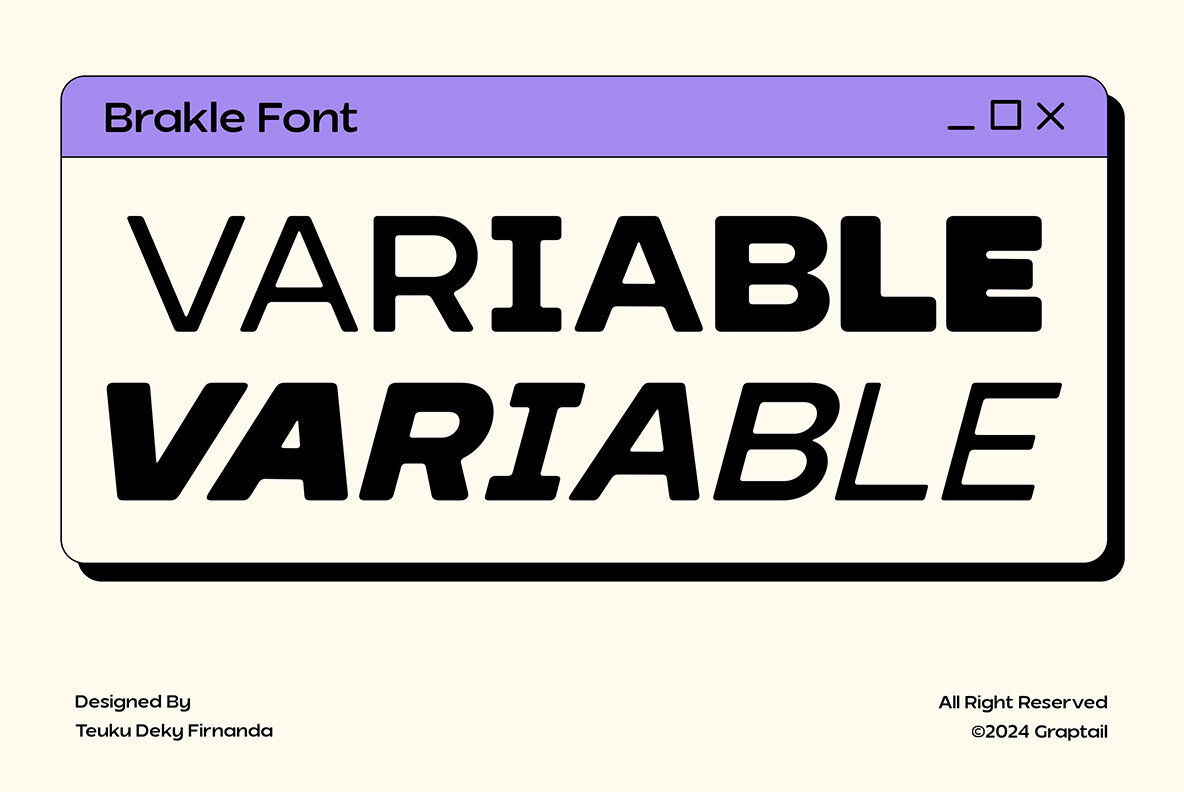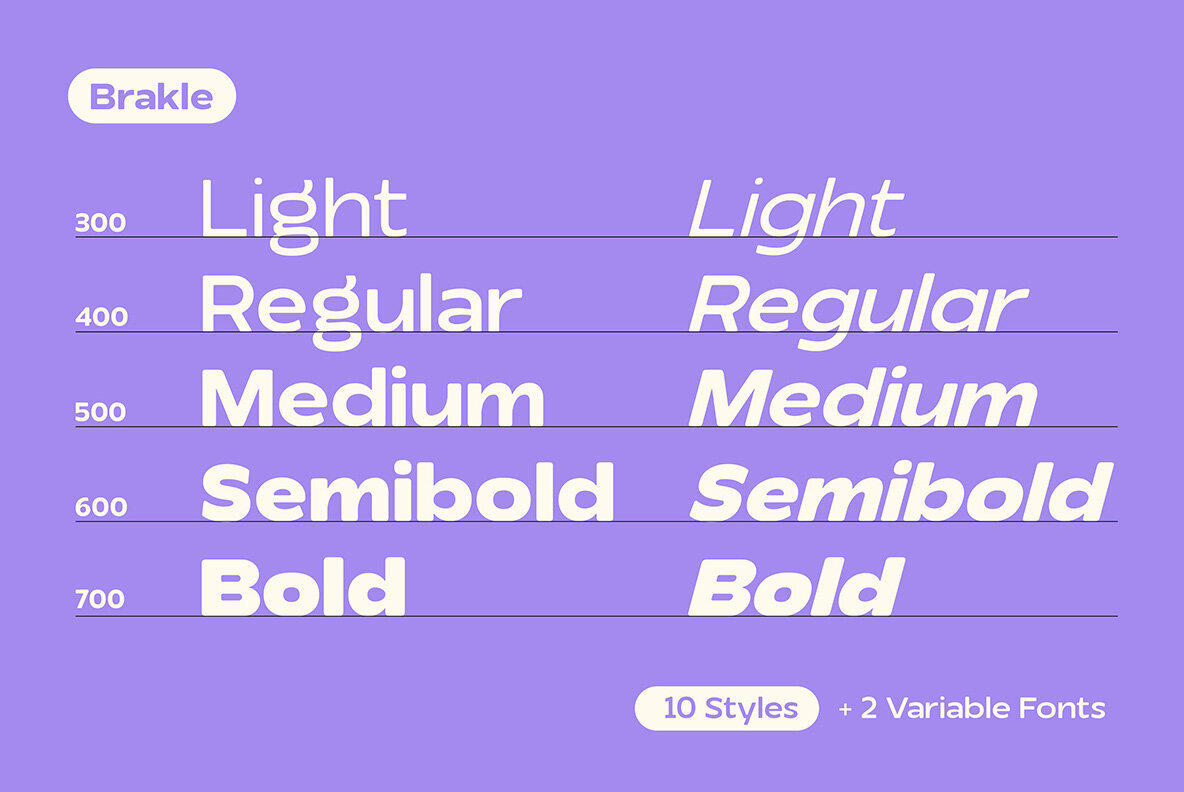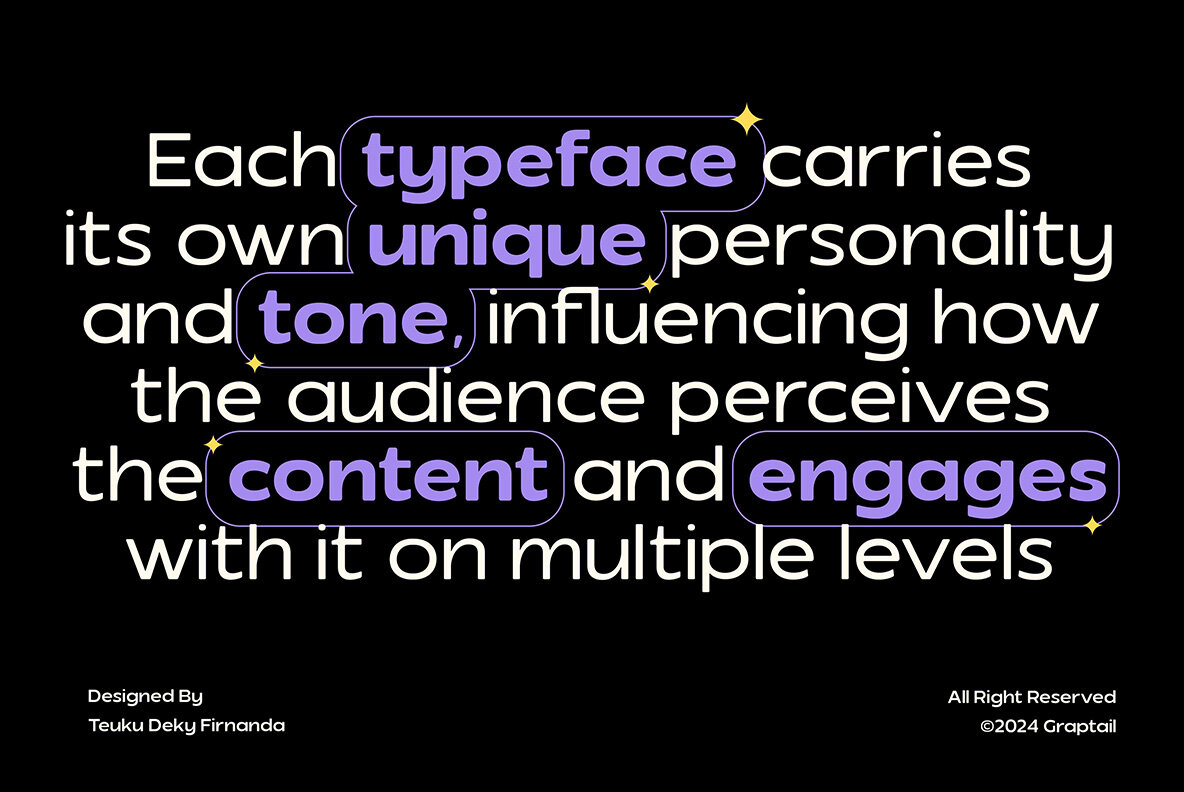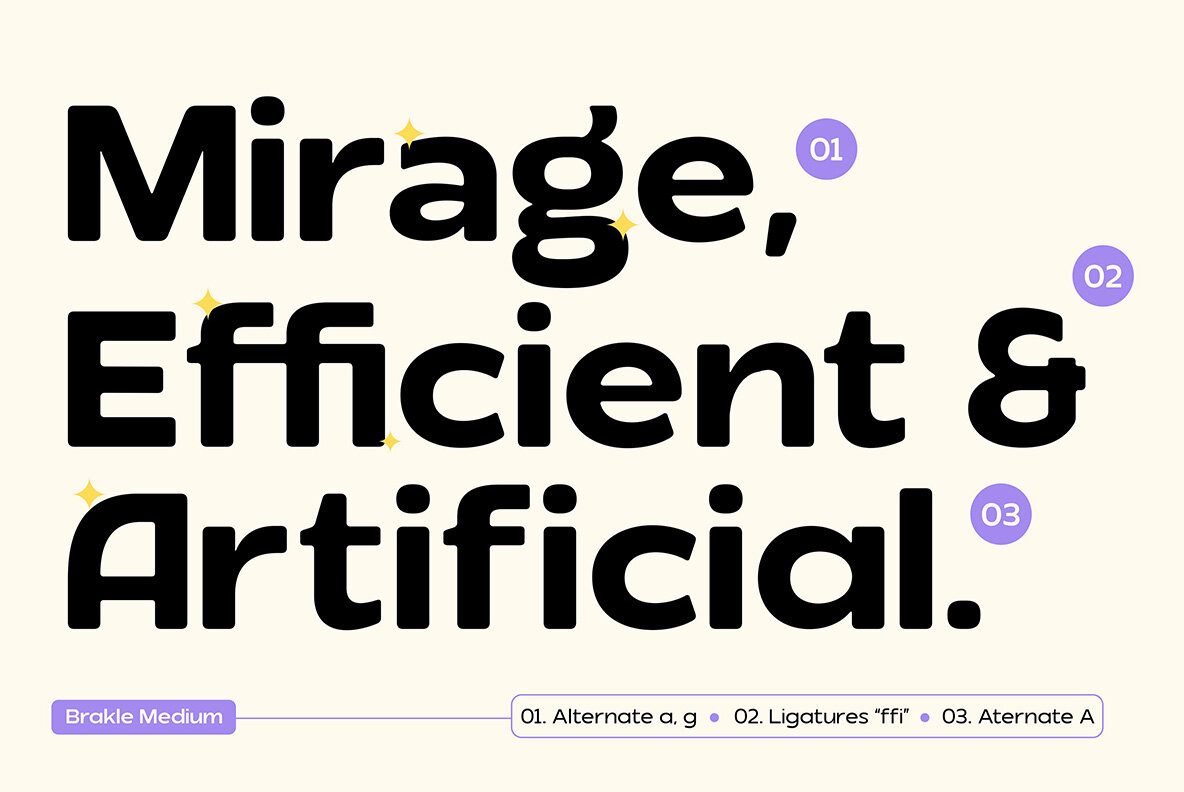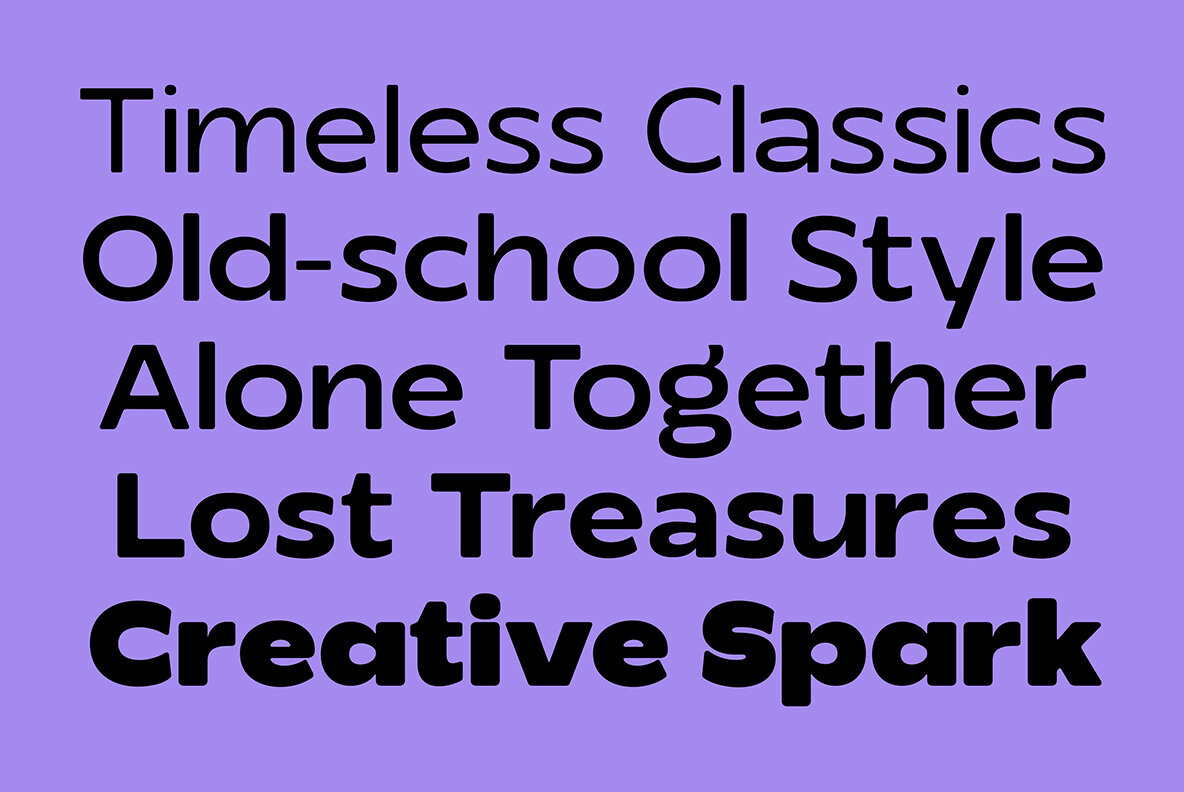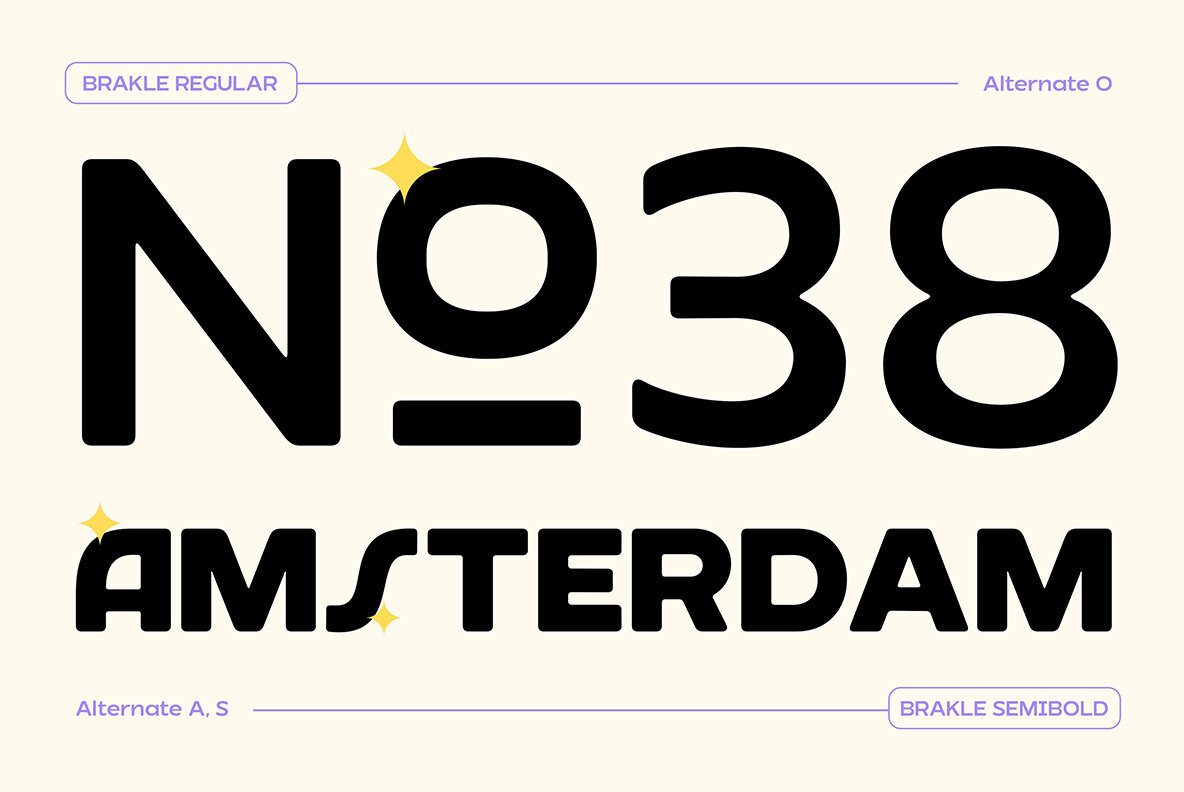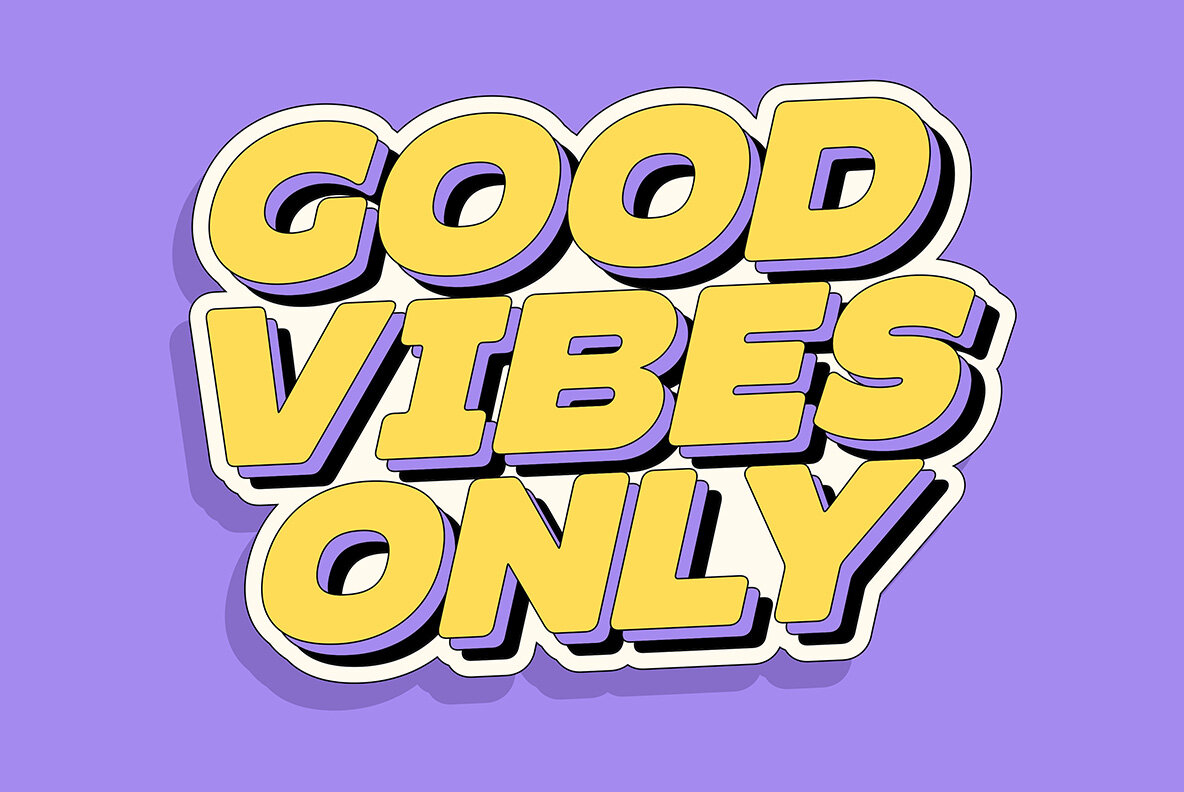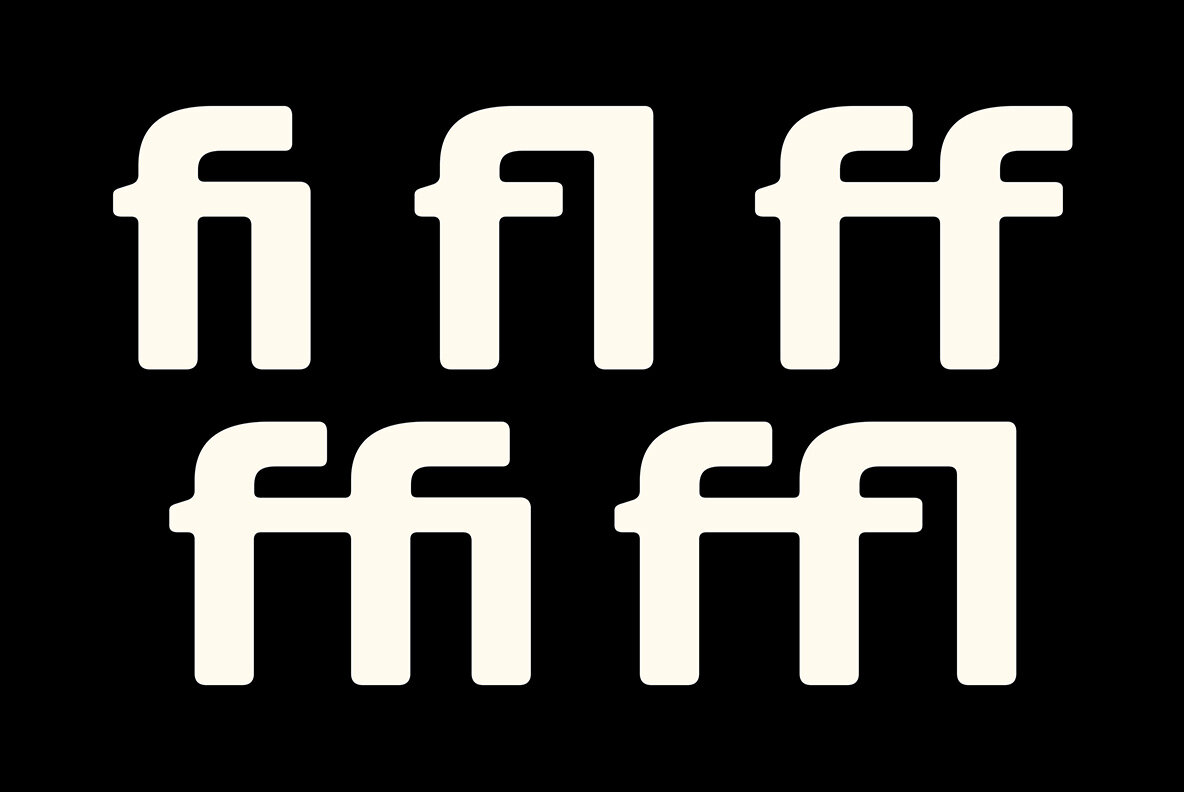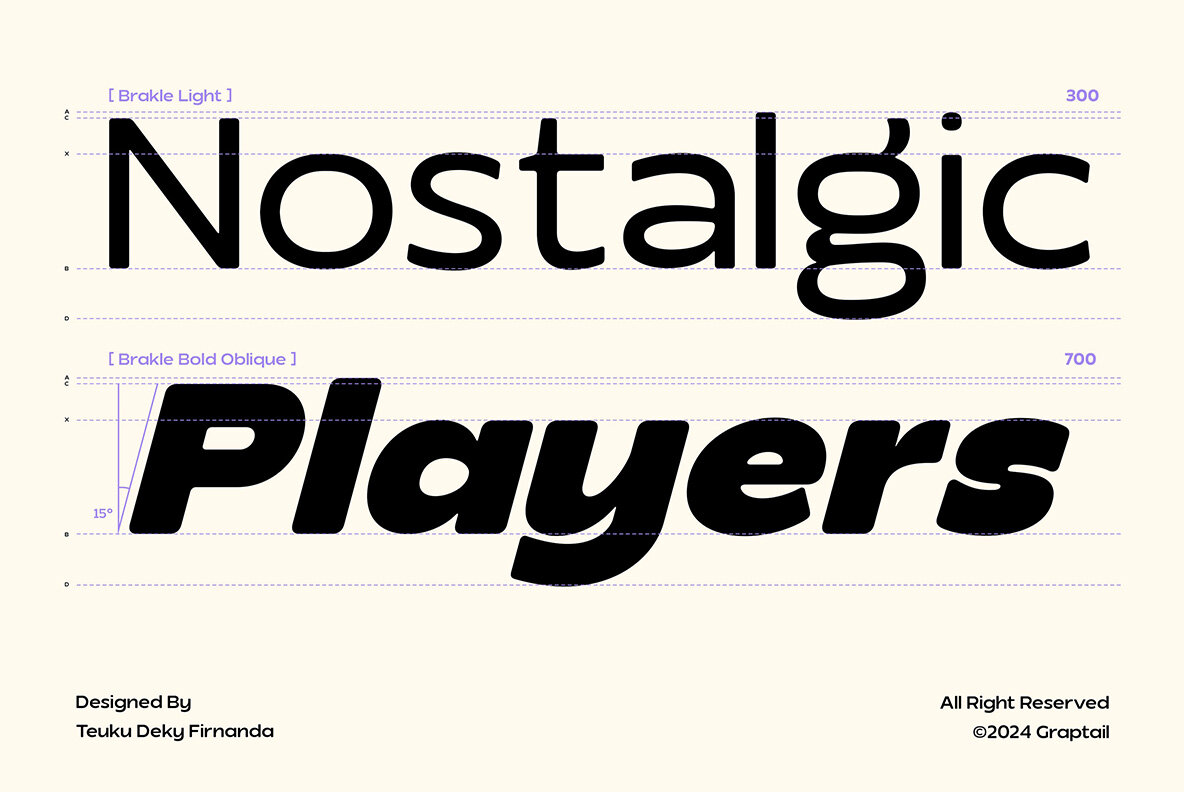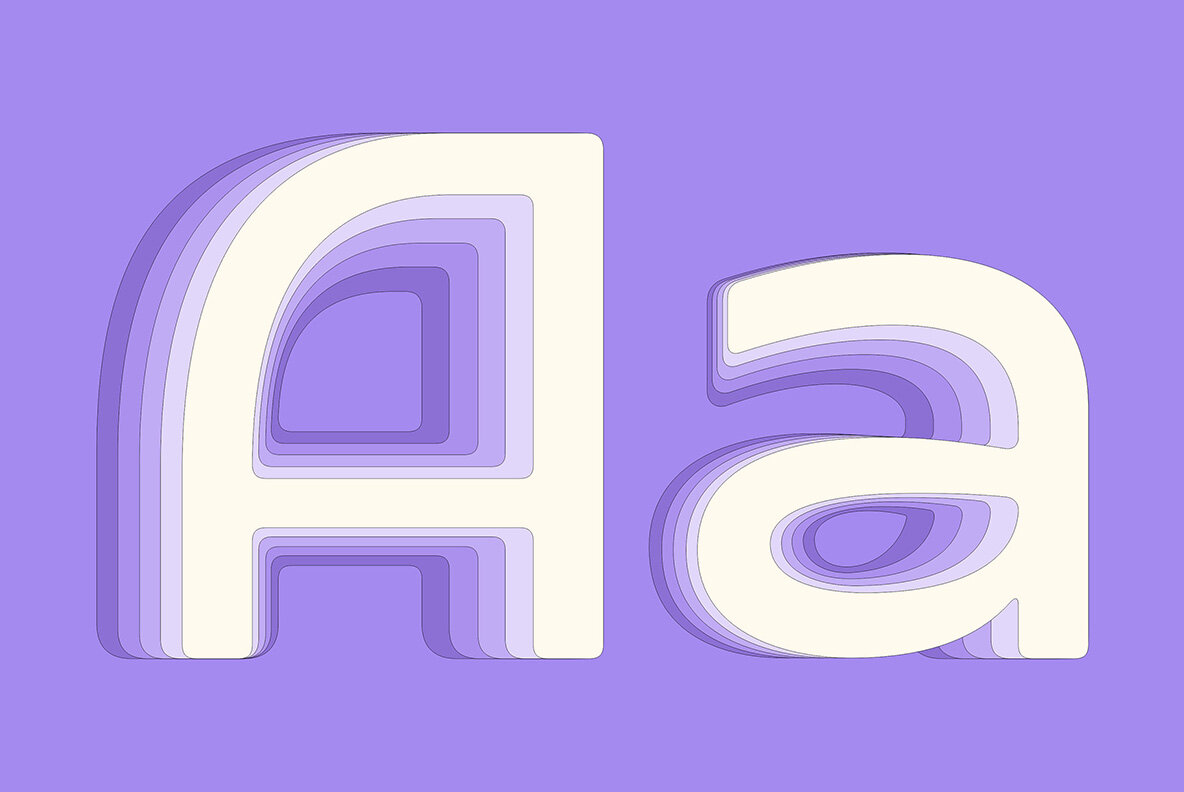
Brakle Font
Brakle Font is a captivating sans-serif font family with 10 carefully crafted variations designed to infuse your designs with a unique retro touch. This font seamlessly combines the elegance of modern sans serif typography with a nostalgic nod to the retro era, creating the perfect blend of past and present. Brakle Font offers maximum flexibility to meet all your design needs. Each font variant has been thoughtfully created to evoke distinctive impressions, ranging from bold expressions to subtle softness, suitable for various creative projects.